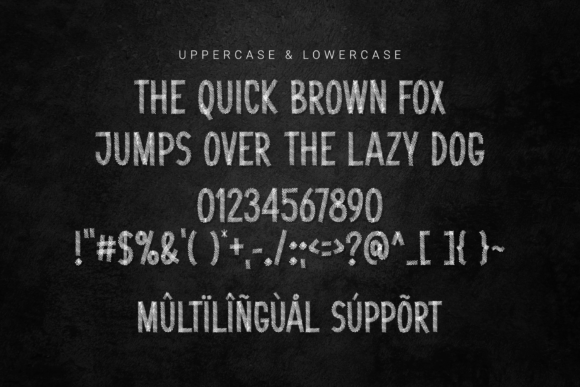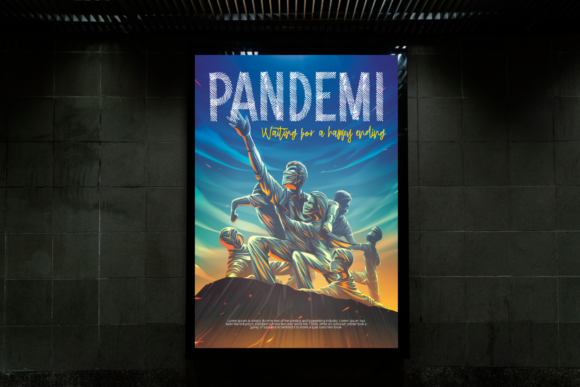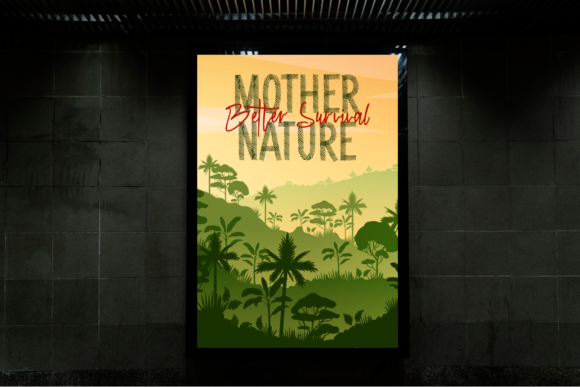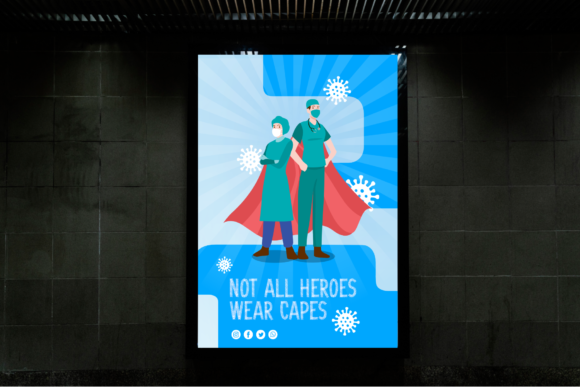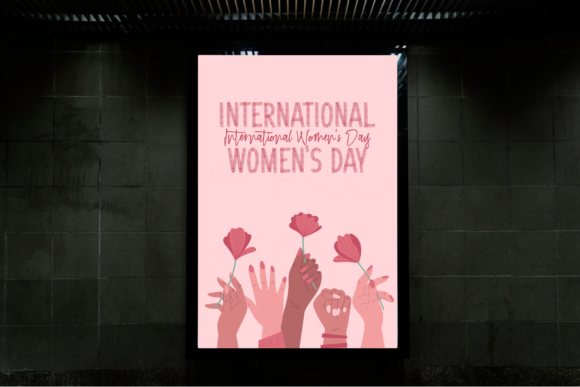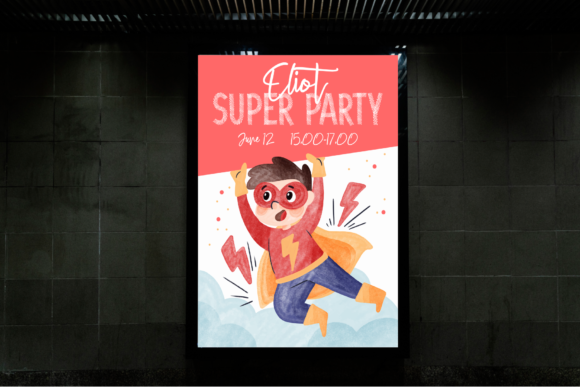
Fineliner Changes the World Font: Revolutionizing Design with Futuristic Flair
In the realm of typography, few fonts have made as significant an impact as Fineliner Changes the World. This simple yet striking display font has been turning heads with its unique lines that craft truly extraordinary characters. Developed with the intention of infusing designs with a futuristic vibe, Fineliner Changes the World has rapidly become a go-to choice for designers and crafters looking to elevate their branding projects.
The Genesis of Fineliner Changes the World
Fineliner Changes the World was born out of a desire to create a font that could seamlessly blend into various design projects while standing out through its distinctiveness. The brainchild of a visionary designer, this font was meticulously crafted to cater to the needs of modern designers who seek to imbue their work with a sense of futurism and innovation.
Key Features of Fineliner Changes the World
- Unique Line Work: The defining feature of Fineliner Changes the World is its use of lines that create a distinctive and captivating character set. Each letter and number is carefully designed to contribute to a futuristic aesthetic.
- Versatility: This font is incredibly versatile, making it suitable for a wide array of applications. From logos and t-shirt printing to creative products and digital media, Fineliner Changes the World can adapt to various design needs.
- Ease of Use: Despite its complex appearance, Fineliner Changes the World is remarkably easy to use. Designers can effortlessly incorporate it into their projects, enhancing the visual appeal without compromising on clarity or legibility.
Applications of Fineliner Changes the World
The potential applications of Fineliner Changes the World are vast and varied. Here are some of the most notable uses:
- Logo Design: For businesses looking to establish a strong brand identity, Fineliner Changes the World offers a modern and sleek solution. Its unique lines help in creating logos that are not only memorable but also convey a sense of innovation and forward-thinking.
- T-Shirt Printing: The font’s clear and impactful design makes it perfect for t-shirt printing. Whether it’s for a brand promotion, a personal statement, or an artistic expression, Fineliner Changes the World ensures that the message stands out.
- Creative Products: Designers creating unique products such as posters, stickers, and packaging can greatly benefit from using Fineliner Changes the World. Its futuristic vibe adds an edge to any creative project.
- Digital Media: In the digital realm, Fineliner Changes the World can be used in social media graphics, website headers, and digital advertisements, providing a fresh and contemporary look.
Why Designers and Crafters Love Fineliner Changes the World
Fineliner Changes the World has quickly gained popularity among designers and crafters for several reasons:
- Uniqueness: In a sea of generic fonts, Fineliner Changes the World offers a breath of fresh air with its distinctive style.
- Flexibility: Its adaptability to different design contexts makes it a valuable addition to any designer’s toolkit.
- Aesthetic Appeal: The font’s futuristic look adds a modern touch to any project, making it more engaging and visually appealing.
Fineliner Changes the World Font is more than just a typographic innovation; it’s a design revolution. By offering a unique blend of futurism and versatility, it has become an indispensable asset for designers and crafters aiming to leave a mark in their respective fields. Whether you’re working on a branding project, creating artistic expressions, or simply looking to add a modern twist to your designs, Fineliner Changes the World is poised to change the way we perceive and interact with typography.
Embrace the future of design with Fineliner Changes the World, and discover a world where typography knows no bounds.